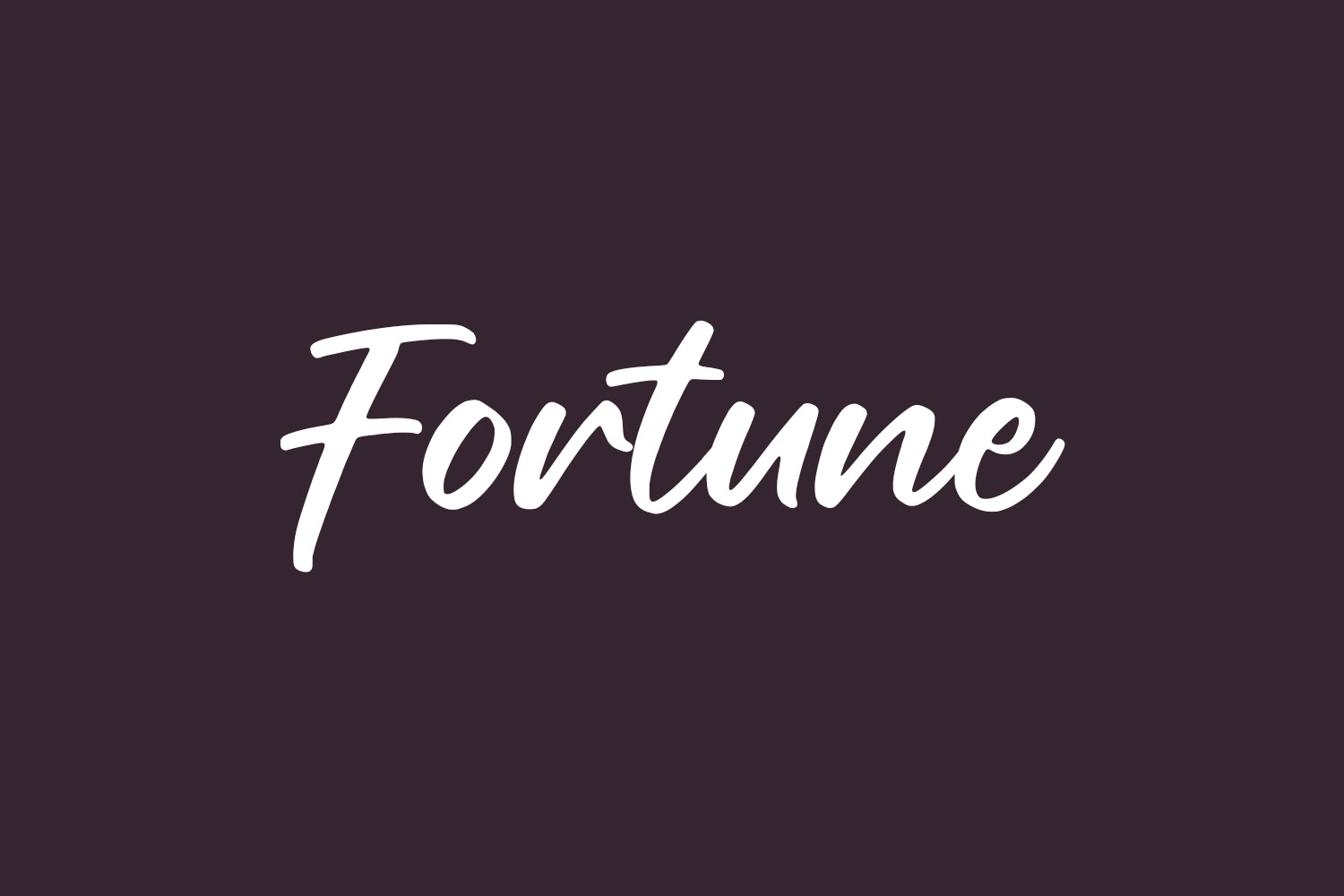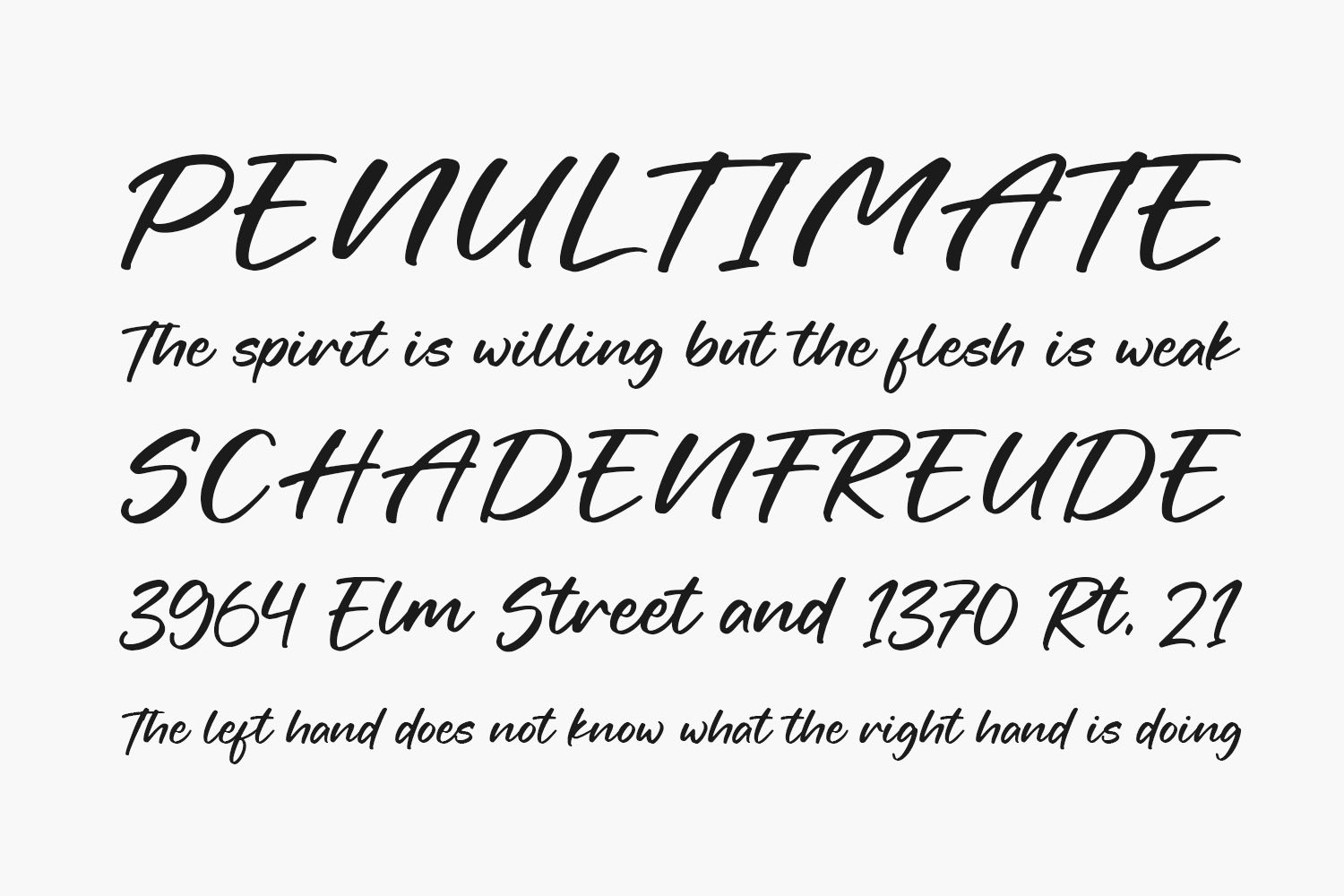
Introducing Fortune Free Font, a delightful and uncomplicated handwritten font. This versatile font complements any design concept, imparting a charming and romantic feel to your projects. Tailored for those seeking a beautiful and rejuvenating aesthetic for their designs. Fortune Free Font is free for personal use only. Please purchase the full version for commercial use.
Designed by Aestherica Studio